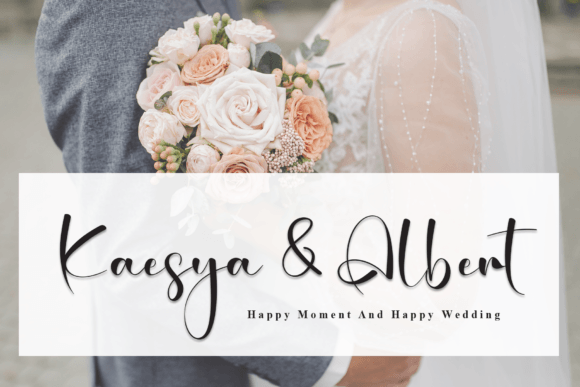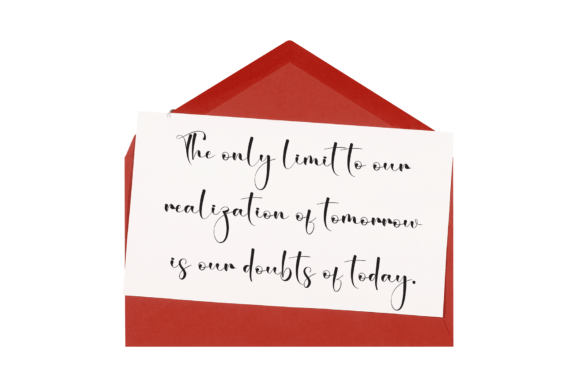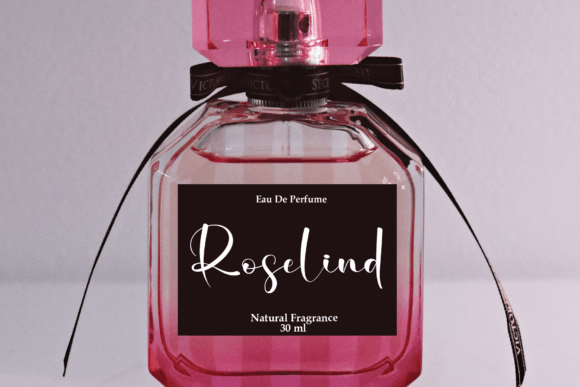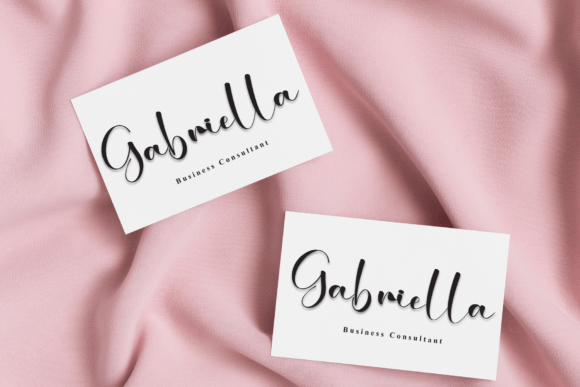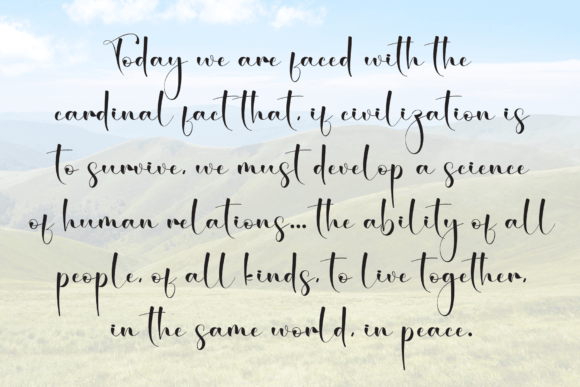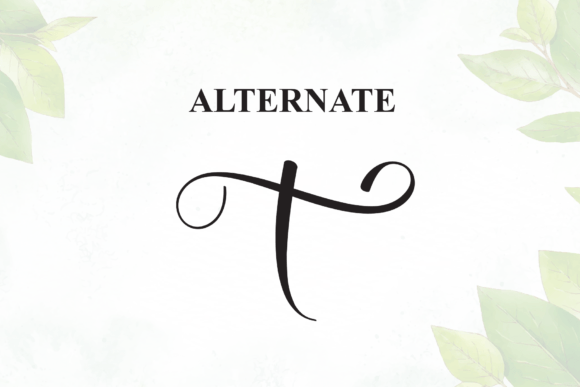
Introduction to Montbel Font
Montbel is a stylish and incredibly elegant script font.
Key Features of Montbel Font
Why Choose Montbel Font?
Montbel Font offers exceptional quality and versatility, making it a valuable addition to your design toolkit. Whether you’re creating for personal projects or commercial use, Montbel Font delivers professional results.